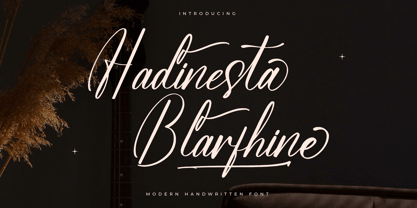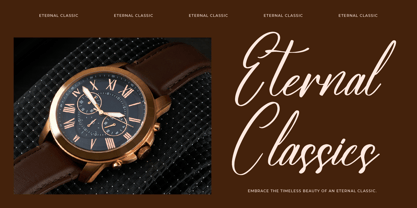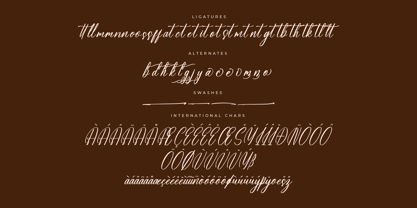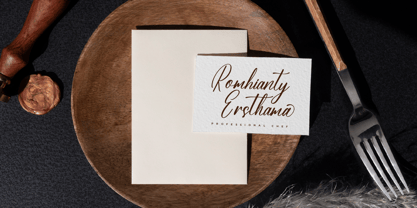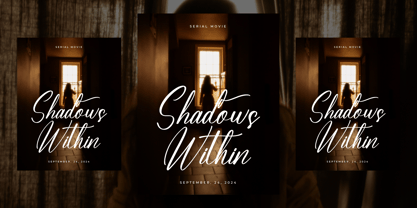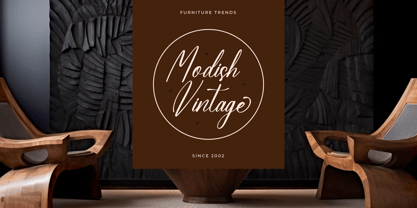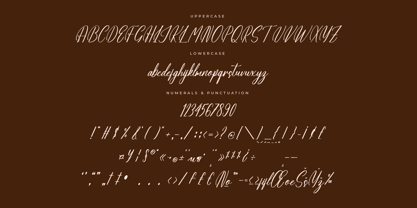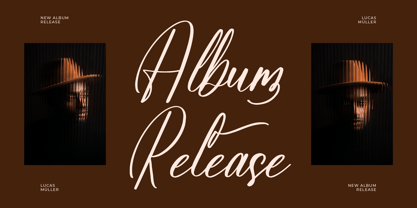
Hadinesta Blarfhine
by Letterena Studios
The Hadinesta Blarfhine Font Family was designed by Heru Utama Putra and published by Letterena Studios. Hadinesta Blarfhine contains 2 styles and family package options. More about this family
Hadinesta Blarfhine is a dazzling script font that epitomizes elegance and charm. Its graceful flourishes and intricate details captivate the eye, making it perfect for wedding invitations, branding, and signage. With its timeless appeal and delicate curves, Hadinesta Blarfhine adds a touch of sophistication to any design project.